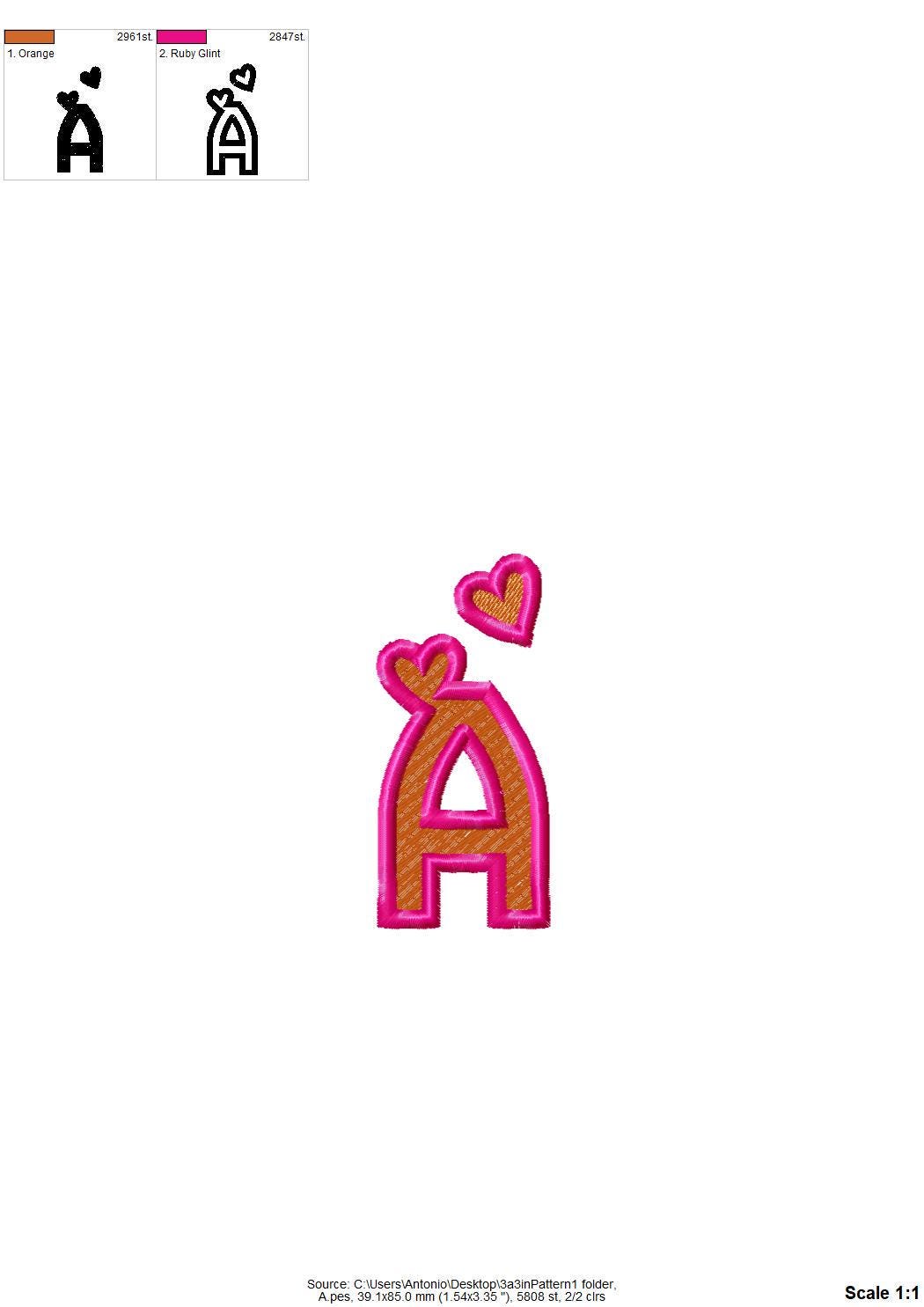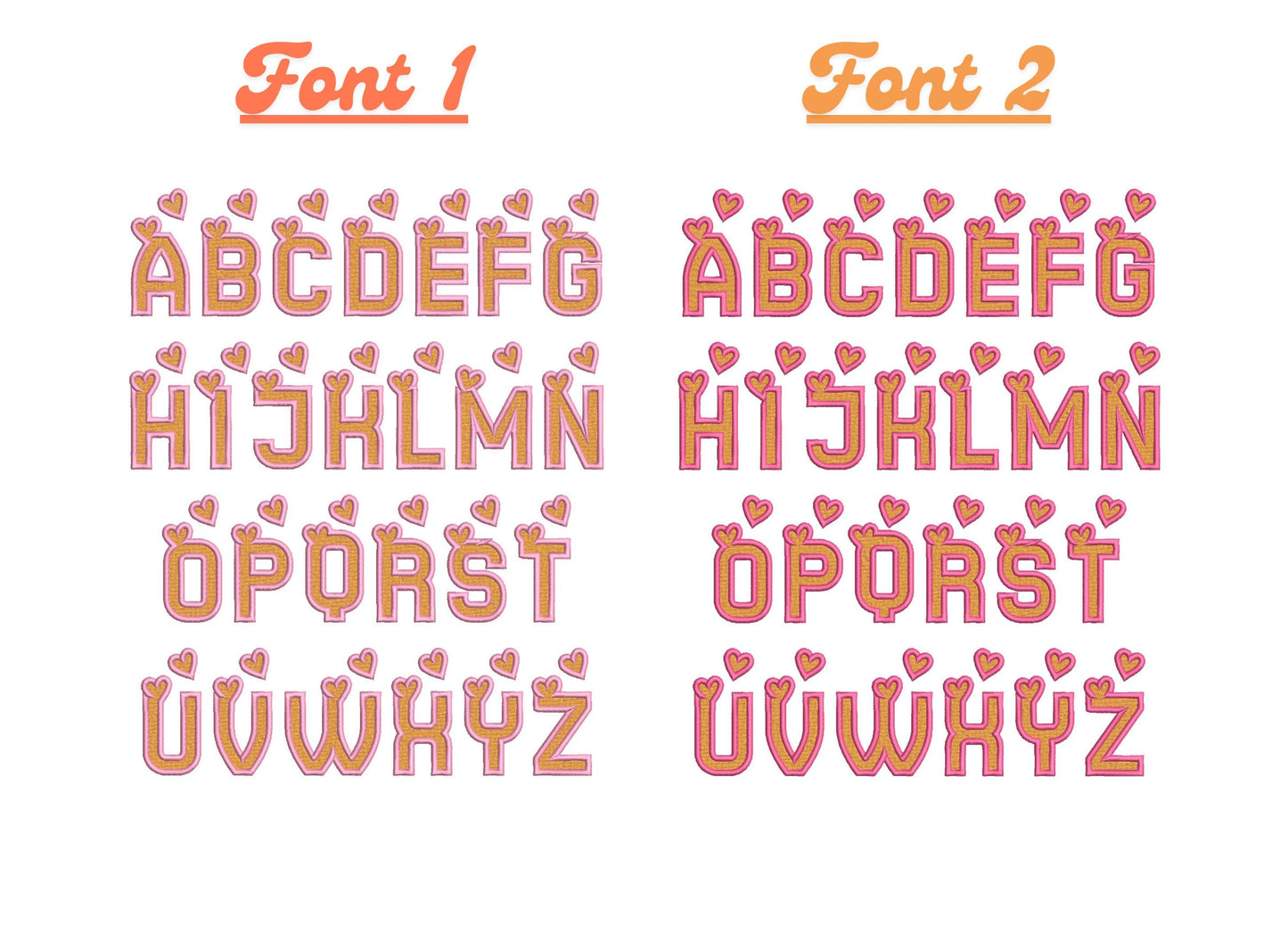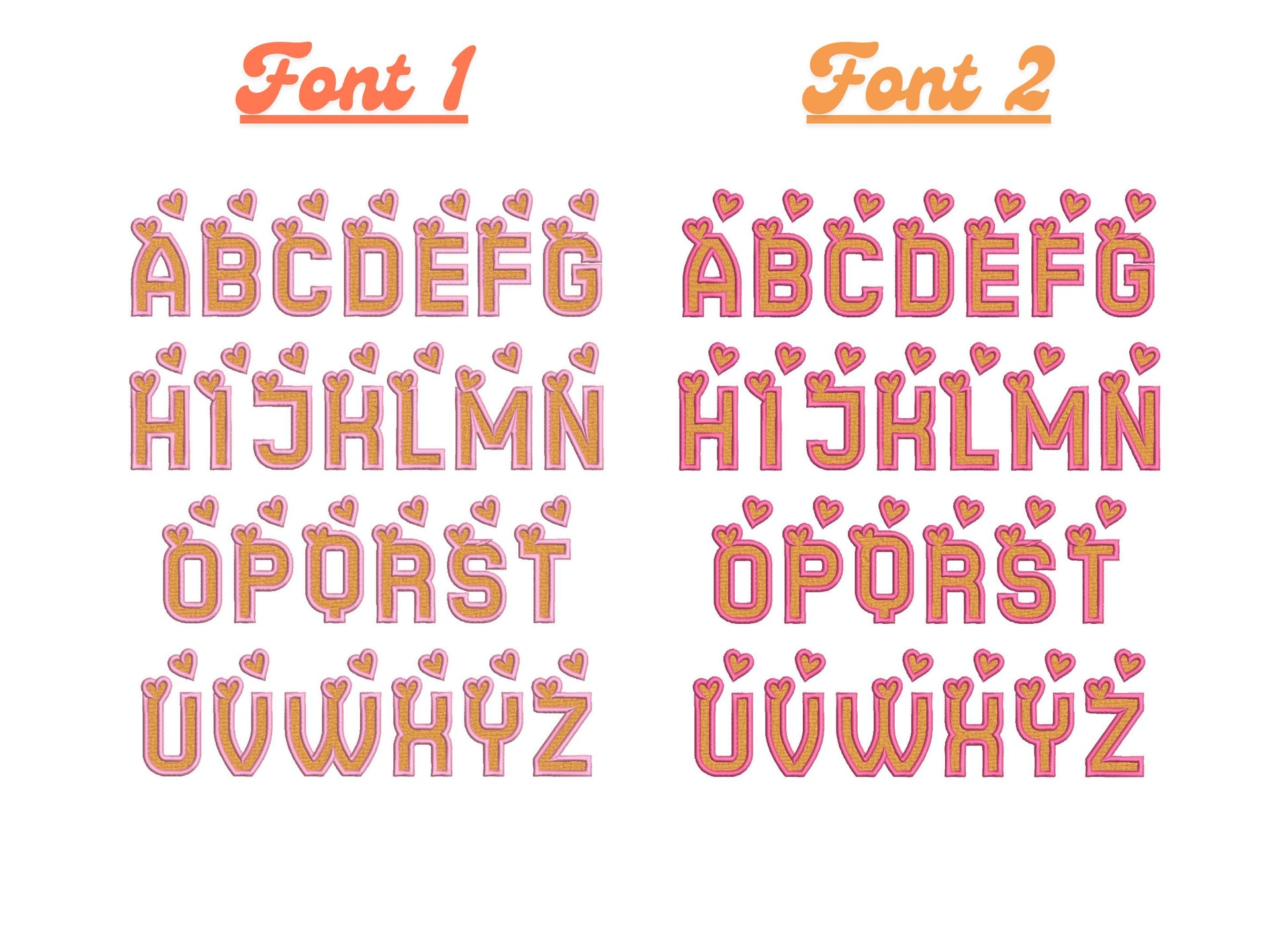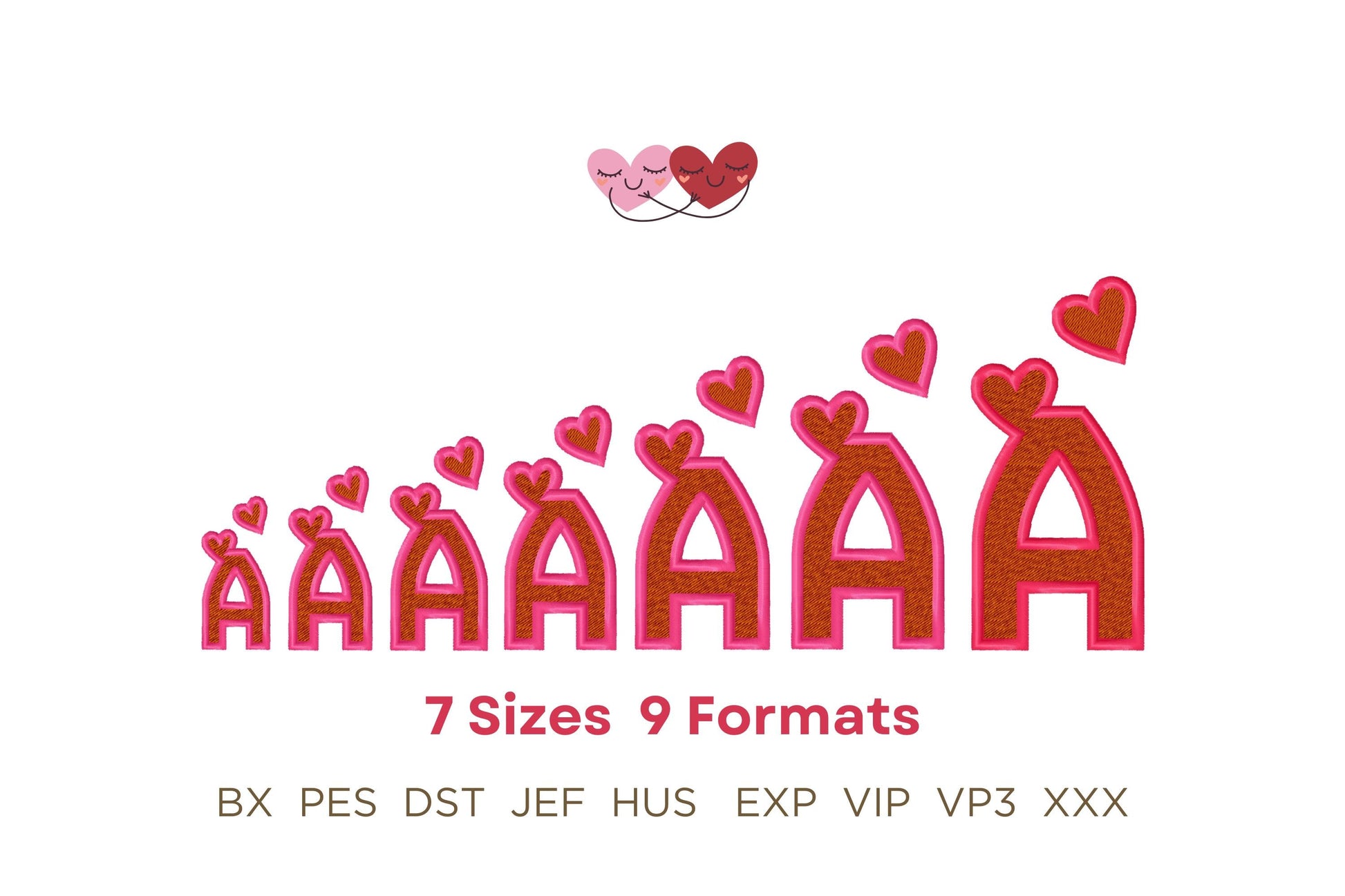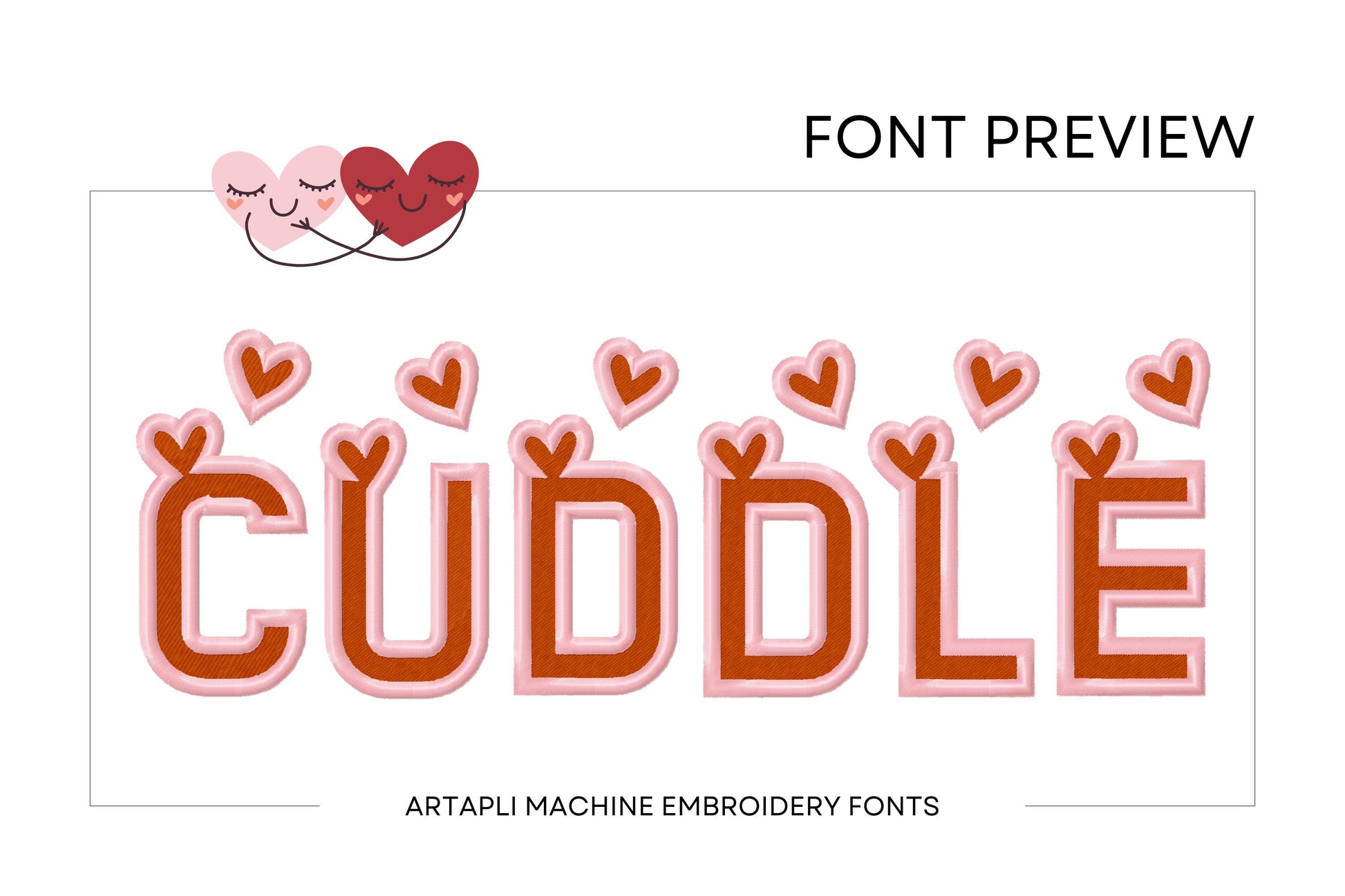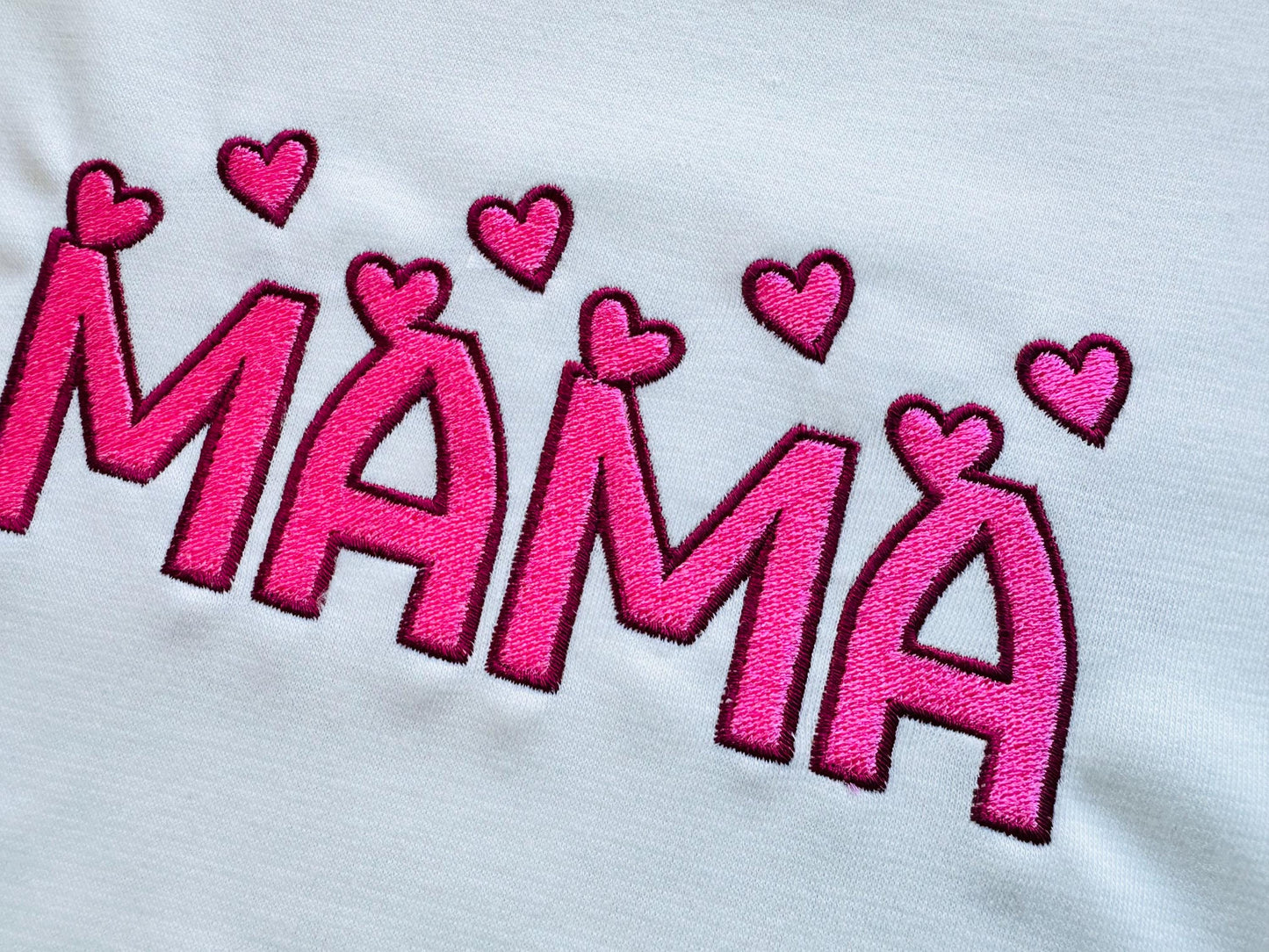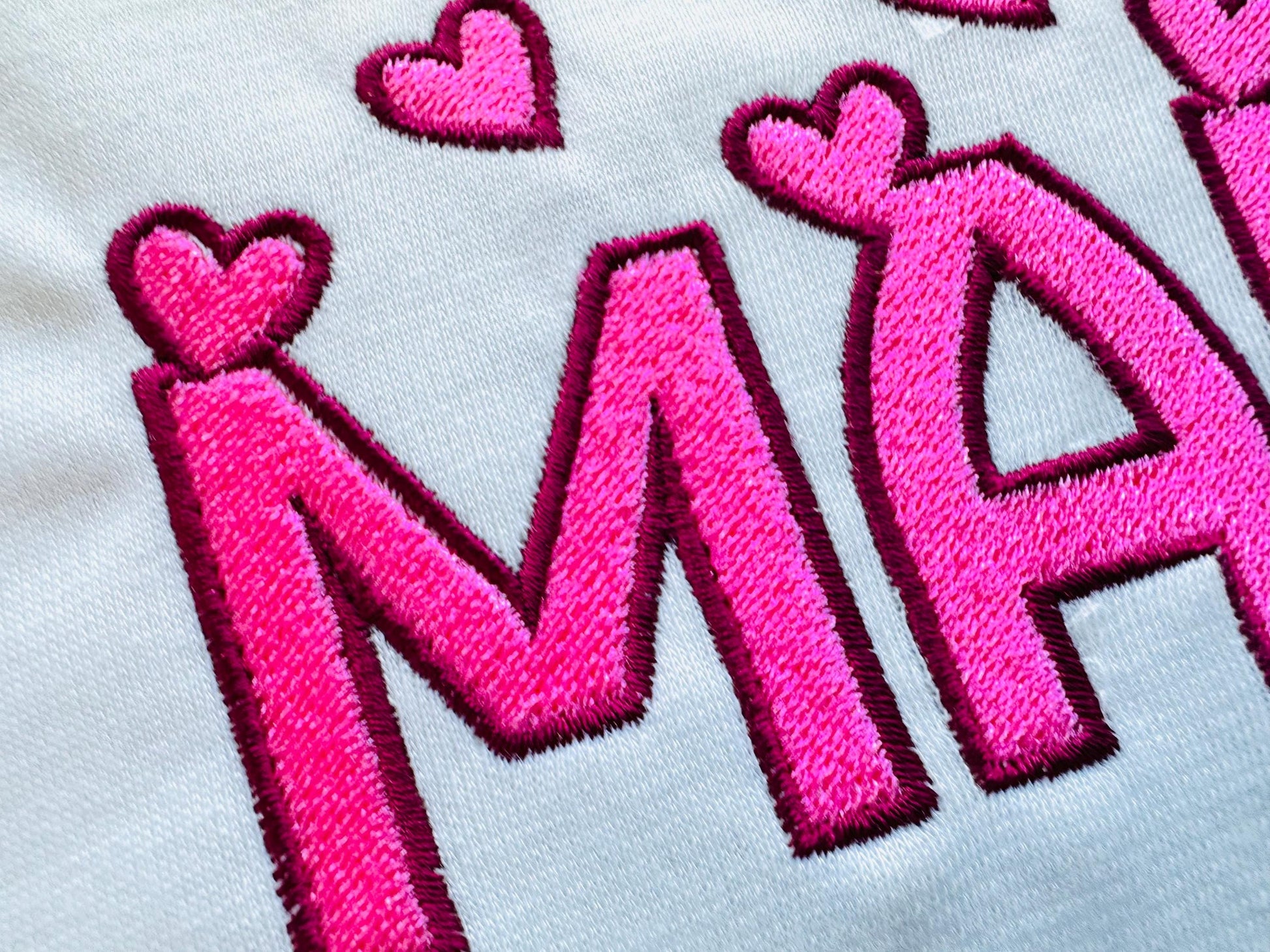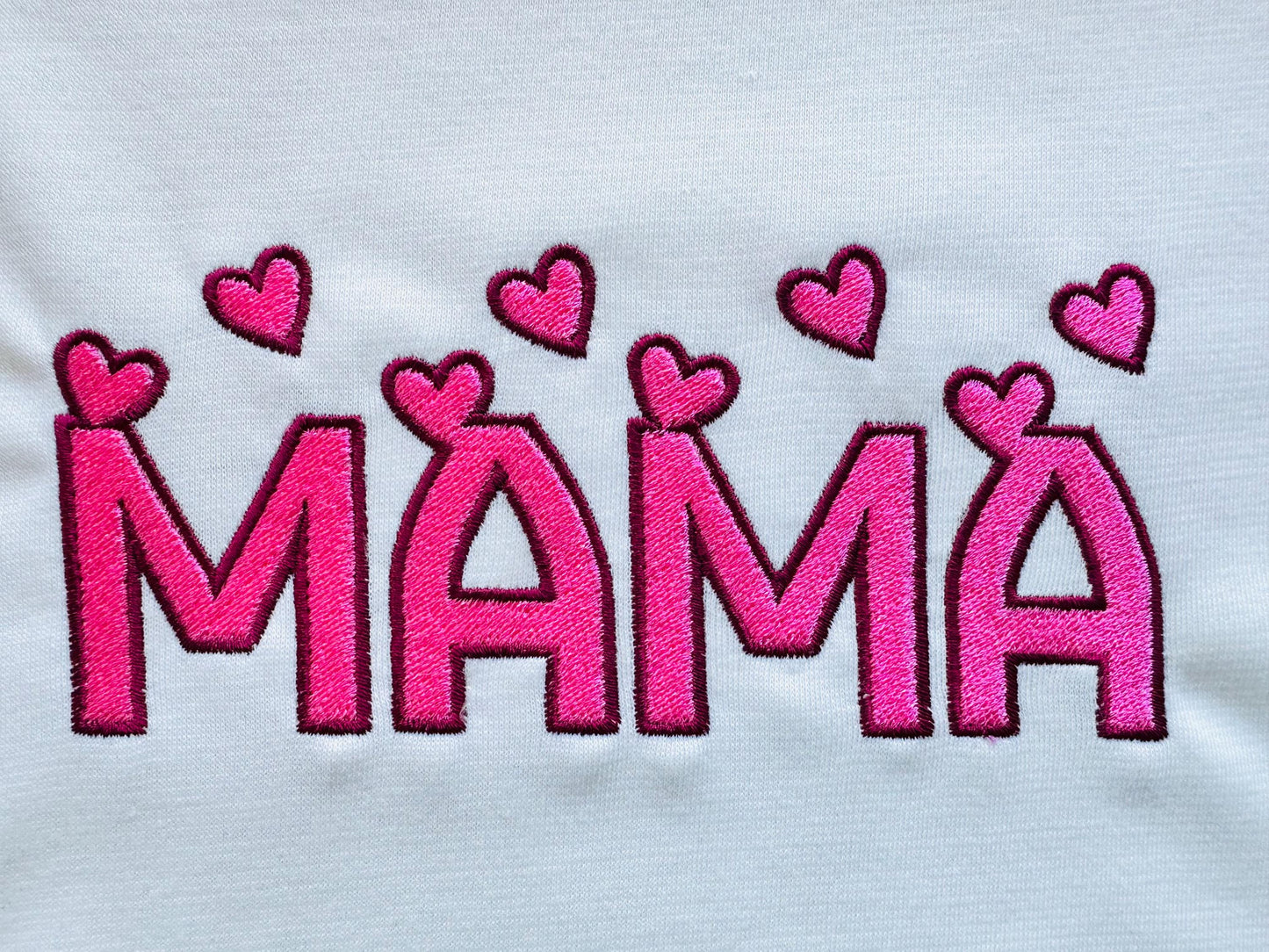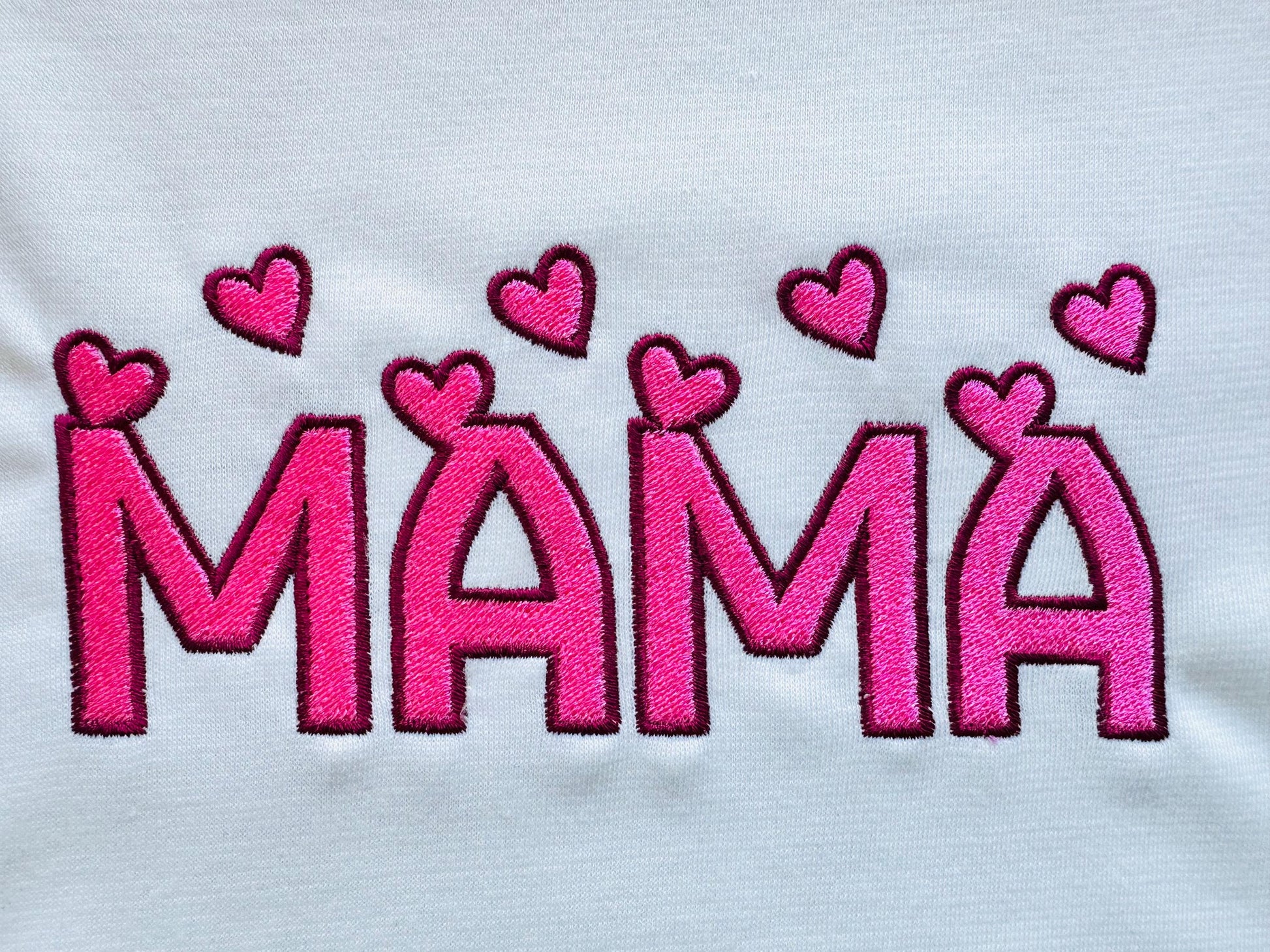
Heart Monogram Font Fill Stitch and Satin Outline Alphabet Set of 2
Or click to open the linkA heart monogram font in fill stitch with a satin outline. Sweet for Valentine's shirts, pillows, gifts and monograms.
Two slightly different alphabets, uppercase A to Z. Seven sizes: 2, 2.5, 3, 3.3, 4, 4.5 and 5 inches.
- Heart monogram font, 2 alphabets
- Uppercase A to Z
- 7 sizes, 2 to 5 in